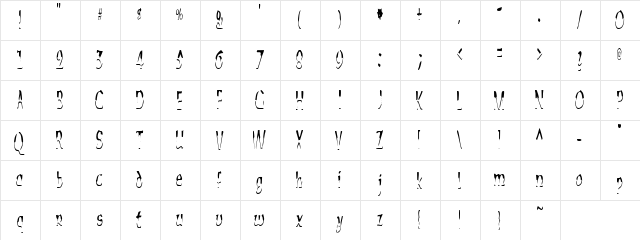
Alien Script Regular
Design Context for Alien Script Typeface
Alien Script flows with the natural rhythm of handwritten lettering, making it ideal for designs that call for warmth and personal expression.
Font Pairing: Combine Alien Script with a simple geometric sans for maximum contrast — the tension between flowing curves and clean structure is a classic typographic pairing.
Pro Tip: Use Alien Script for short runs of text — names, titles, or taglines. Extended body copy in script faces tires the eye quickly.